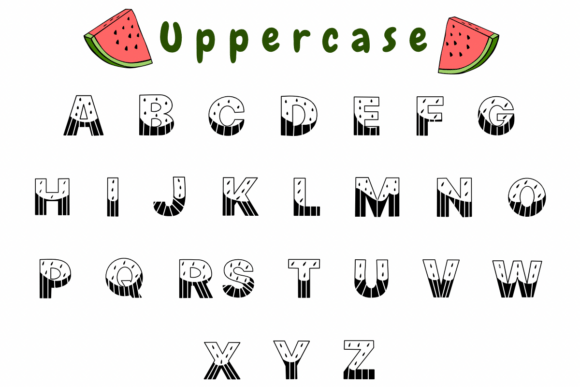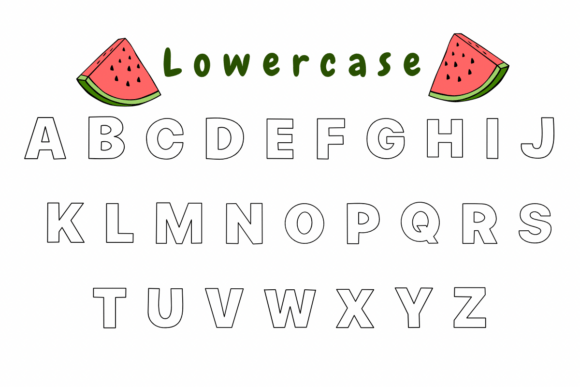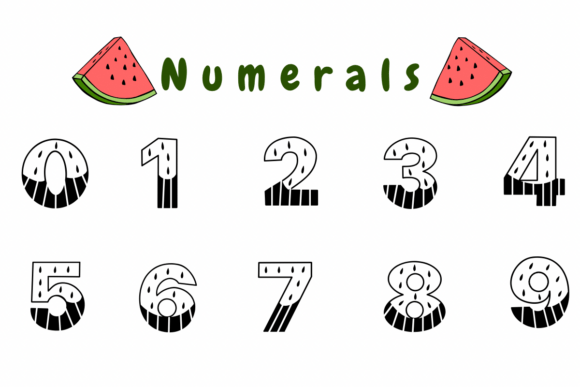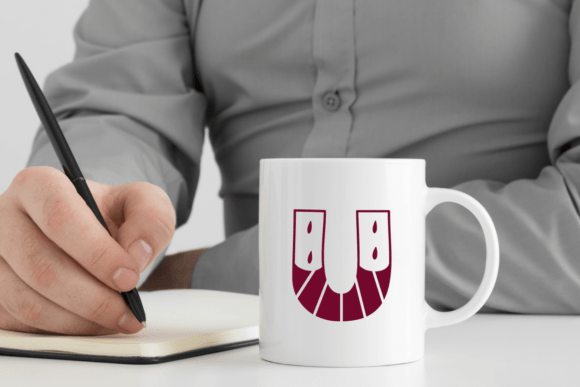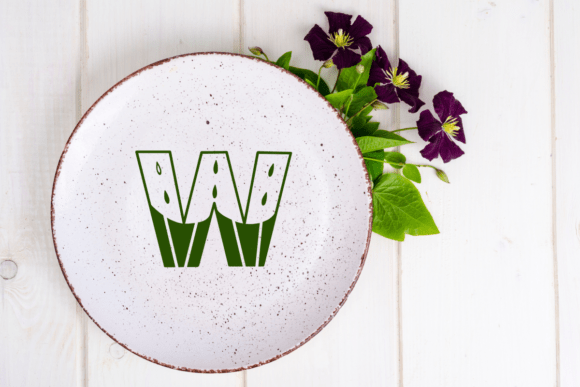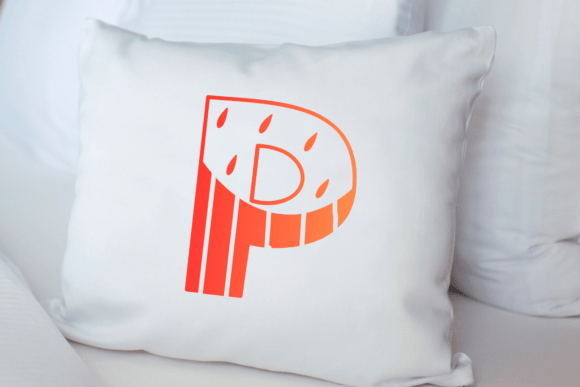
Getting Your Summer Vibes On with Big Melon Fruit Font
Remember those summer days spent lounging in the backyard, snacking on juicy watermelon slices and sipping cold lemonade? For many of us, those carefree moments evoke a sense of happiness and playfulness that’s hard to replicate in our daily lives. As designers, we’re always on the lookout for ways to infuse our work with that same summery feel, and that’s where Big Melon Fruit Font comes in.
This delightful decorative font is designed to bring a burst of fruity fun to your projects, with each uppercase letter styled to resemble the texture and appearance of watermelon slices. Whether you’re creating a kids’ design, food packaging, or party invite, Big Melon Fruit Font adds a splash of whimsy and personality to your work.
For designers, Big Melon Fruit Font is a valuable asset that can help you grab attention and stand out in a crowded market. Its bold, creative forms and cartoonish charm make it the perfect choice for projects that need a playful twist.
Big Melon Fruit Font Key Features
- Font Family: Big Melon Fruit Font comes in a single font family with various styles, including Regular, Bold, and Italic.
- Unique Characteristics: Features a unique, hand-drawn design with a playful and whimsical feel, perfect for creative projects and branding.
Designer Review: Big Melon Fruit Font
Overall, I’d say that Big Melon Fruit Font is a quirky and eye-catching font. It’s perfect for adding a playful touch to your designs, especially for food-related projects or children’s content.
- Unique character shapes and styling give the font a distinct personality.
- The font is highly legible, even at smaller sizes, making it suitable for a variety of applications.
- It’s a great choice for creating visual interest and adding a pop of color to your designs.
- The font may not be ideal for formal or professional projects, as it can come across as childish or overly playful.
- Some letters and characters may not be compatible with certain languages or character sets.
- The font’s aesthetic may not appeal to everyone, and personal taste may vary.
Big Melon Fruit Font is a fun and creative addition to any designer’s toolkit. While it may not be suitable for every project, it’s perfect for those looking to add a touch of whimsy and personality to their designs.
Tips for Getting the Most Out of Big Melon Fruit Font
Use Big Melon Fruit Font in conjunction with bright and bold colors to create a playful and eye-catching design. Experiment with different font sizes and styles to add visual interest to your design. Consider using Big Melon Fruit Font in a combination with other fonts to create a unique and creative look.
Big Melon Fruit Font is perfect for creating playful and eye-catching designs, such as:
- Children’s party invitations
- Summer-themed designs